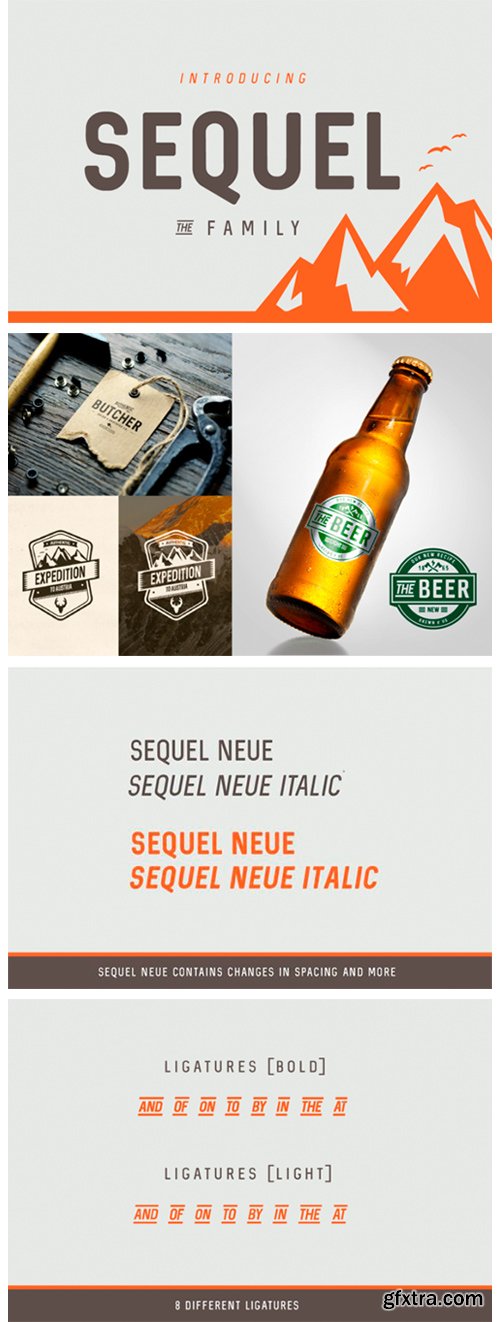
Sequel Font
Sequel is a bold and heavy display font featuring the perfect amount of trendiness. Whether you’re using it for crafting, digital designing, presentations or greeting cards making, it’s perfect!